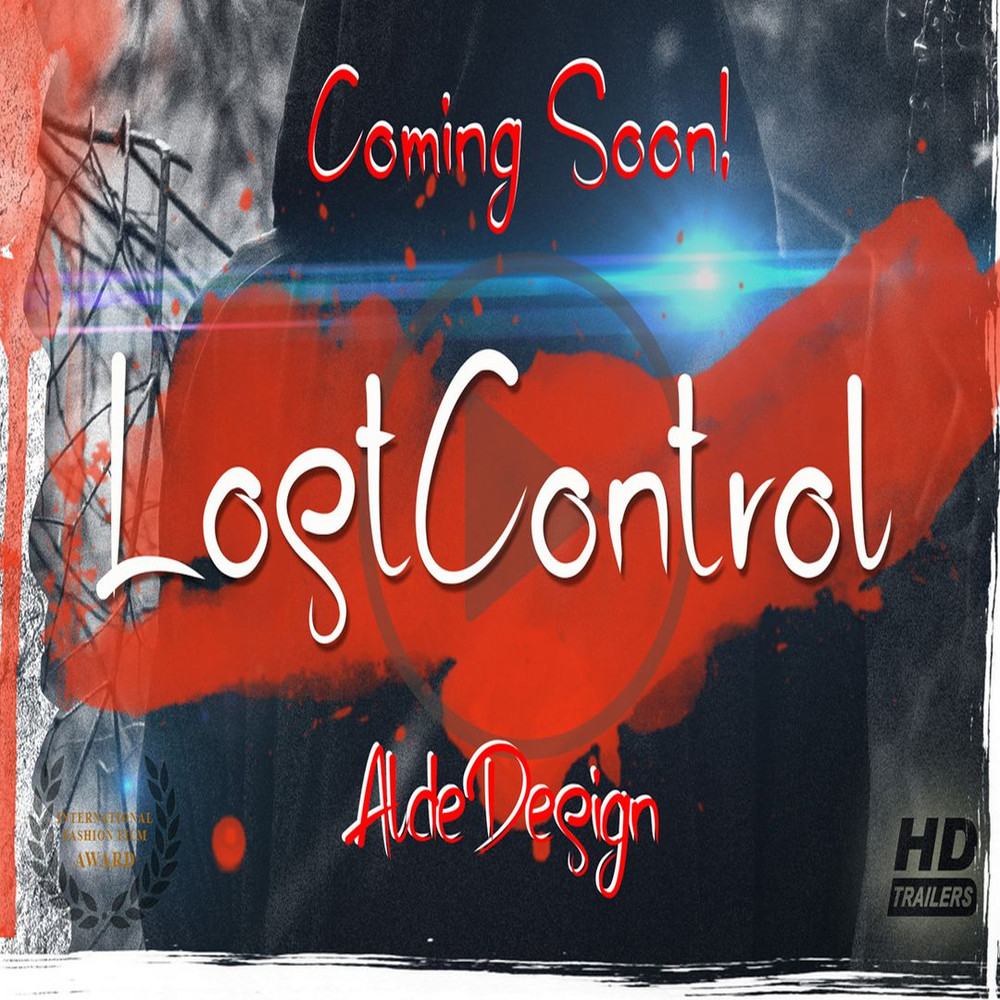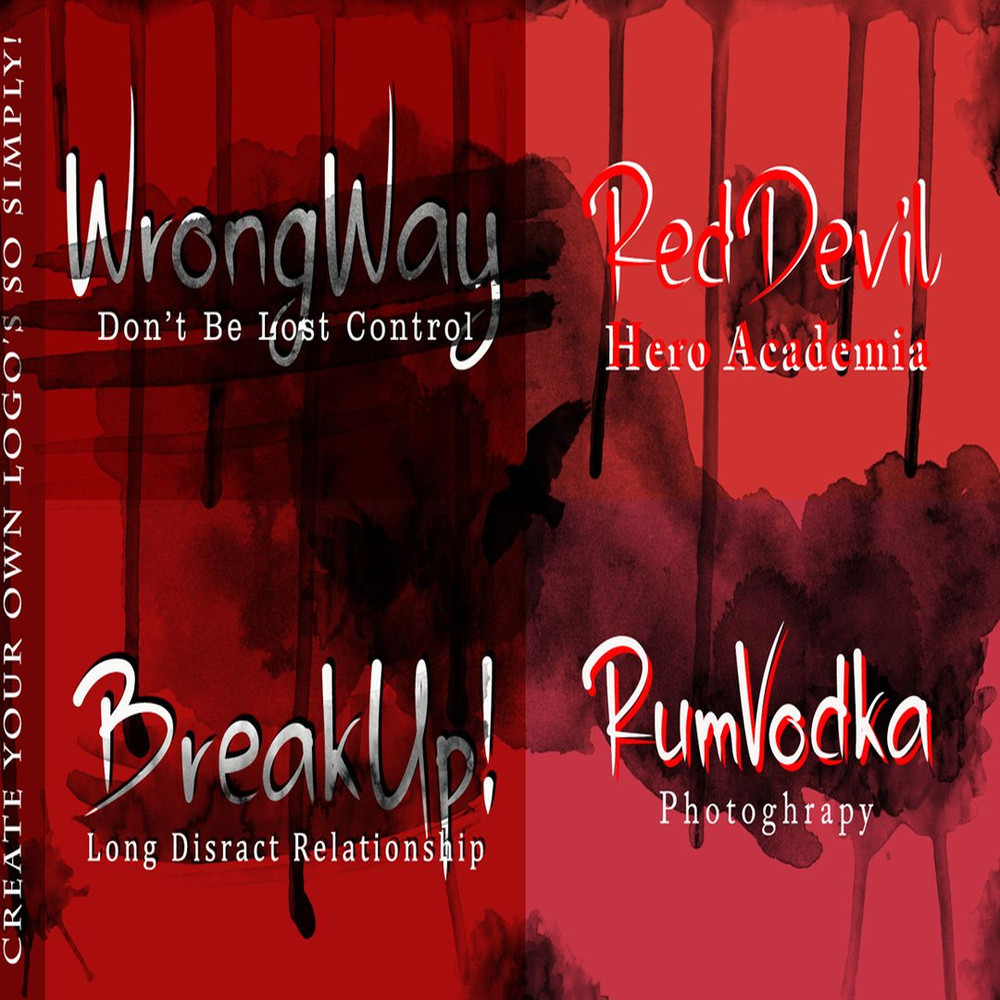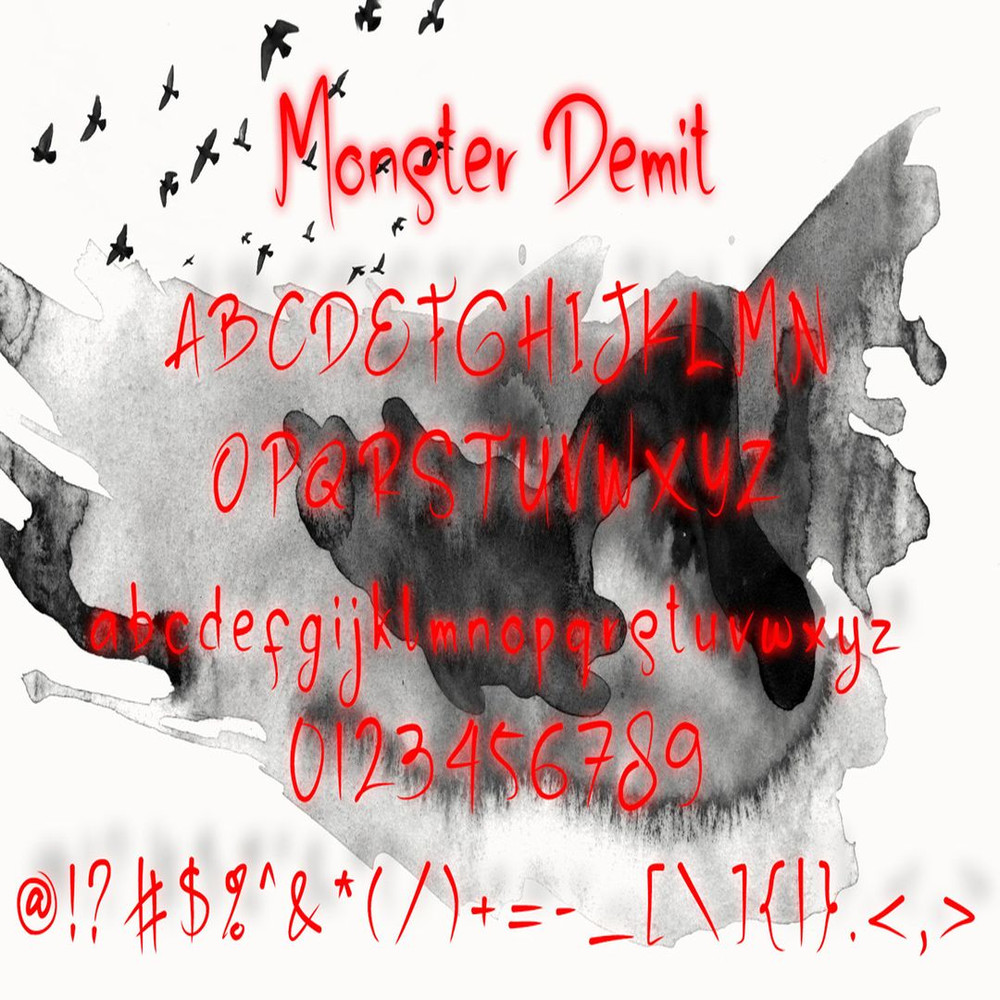
Monster Demit is a great font for any project! This font made with a unique taste comes with a natural touch. We keep this font looks readable, elegant, stylish, catchy, and absolutely easy to use.
Monster Demit is a great choice for a watermark on branding, design, wedding, photography, signature, logo design, album cover, business card, quotes, and many other design projects.
Monster Demit is a great font for any project! This font made with a unique taste comes with a natural touch. We keep this font looks readable, elegant, stylish, catchy, and absolutely easy to use.
Monster Demit is a great choice for a watermark on branding, design, wedding, photography, signature, logo design, album cover, business card, quotes, and many other design projects.
Monster Demit is a great font for any project! This font made with a unique taste comes with a natural touch. We keep this font looks readable, elegant, stylish, catchy, and absolutely easy to use.
Monster Demit is a great choice for a watermark on branding, design, wedding, photography, signature, logo design, album cover, business card, quotes, and many other design projects.
Monster Demit is a great font for any project! This font made with a unique taste comes with a natural touch. We keep this font looks readable, elegant, stylish, catchy, and absolutely easy to use.
Monster Demit is a great choice for a watermark on branding, design, wedding, photography, signature, logo design, album cover, business card, quotes, and many other design projects.